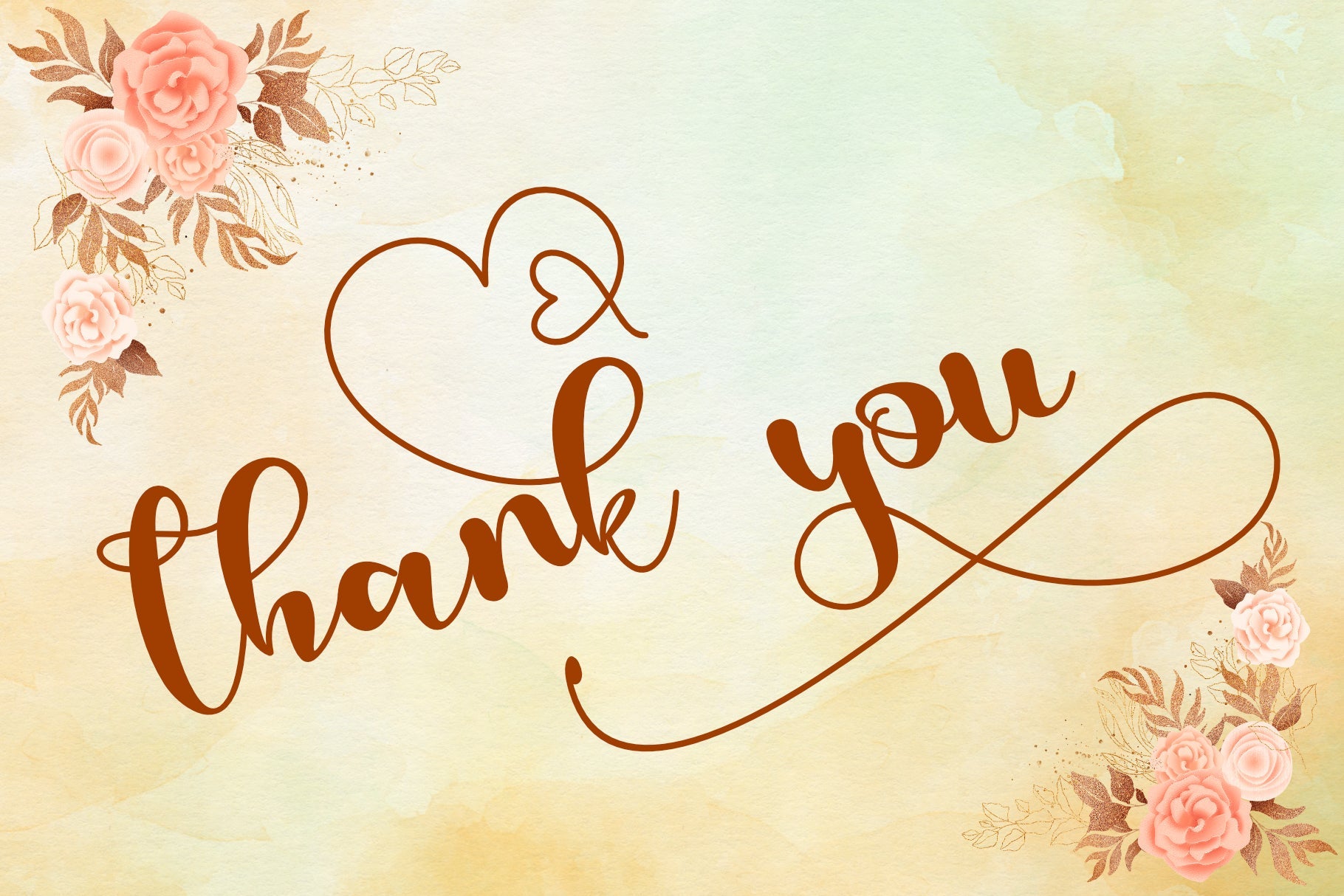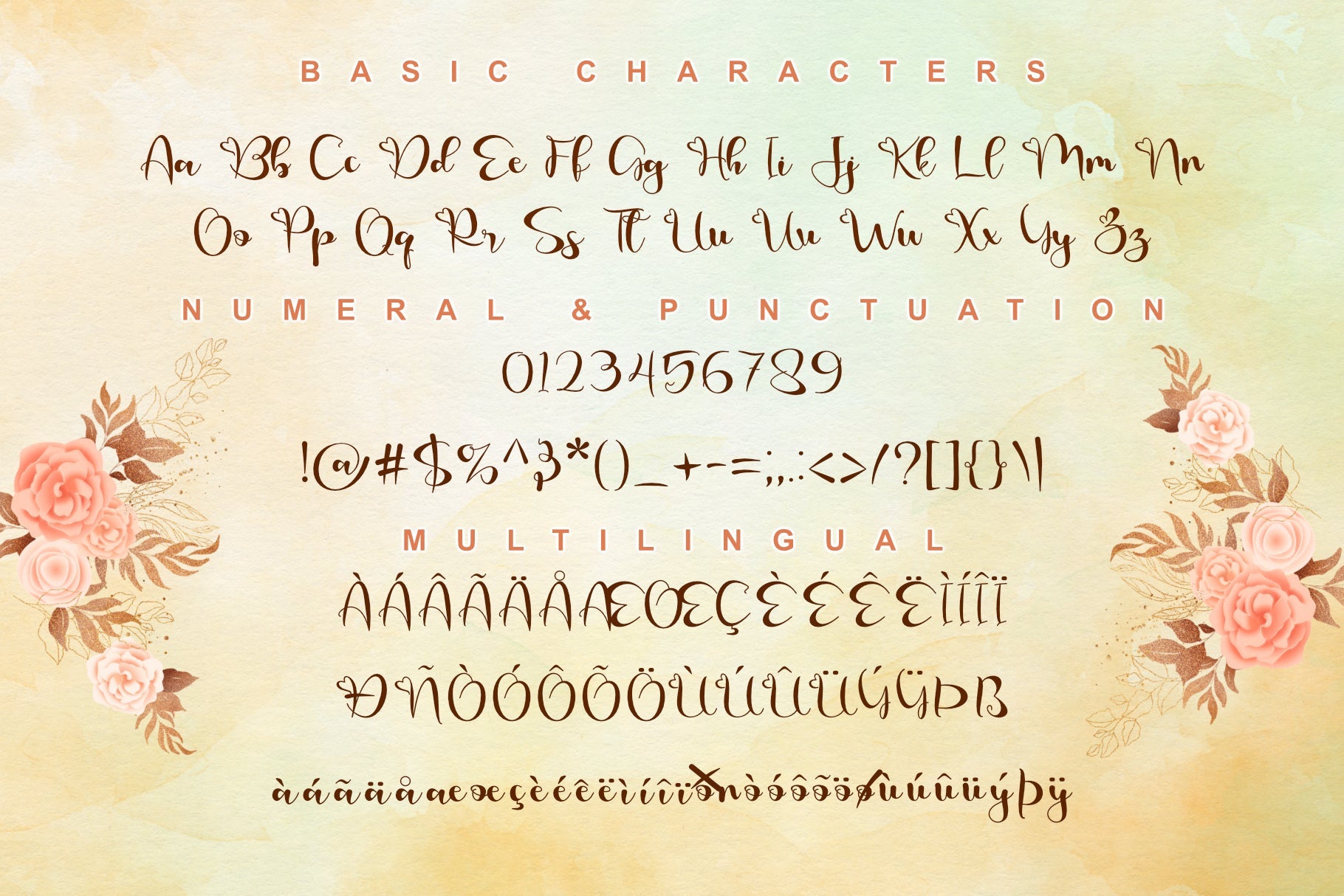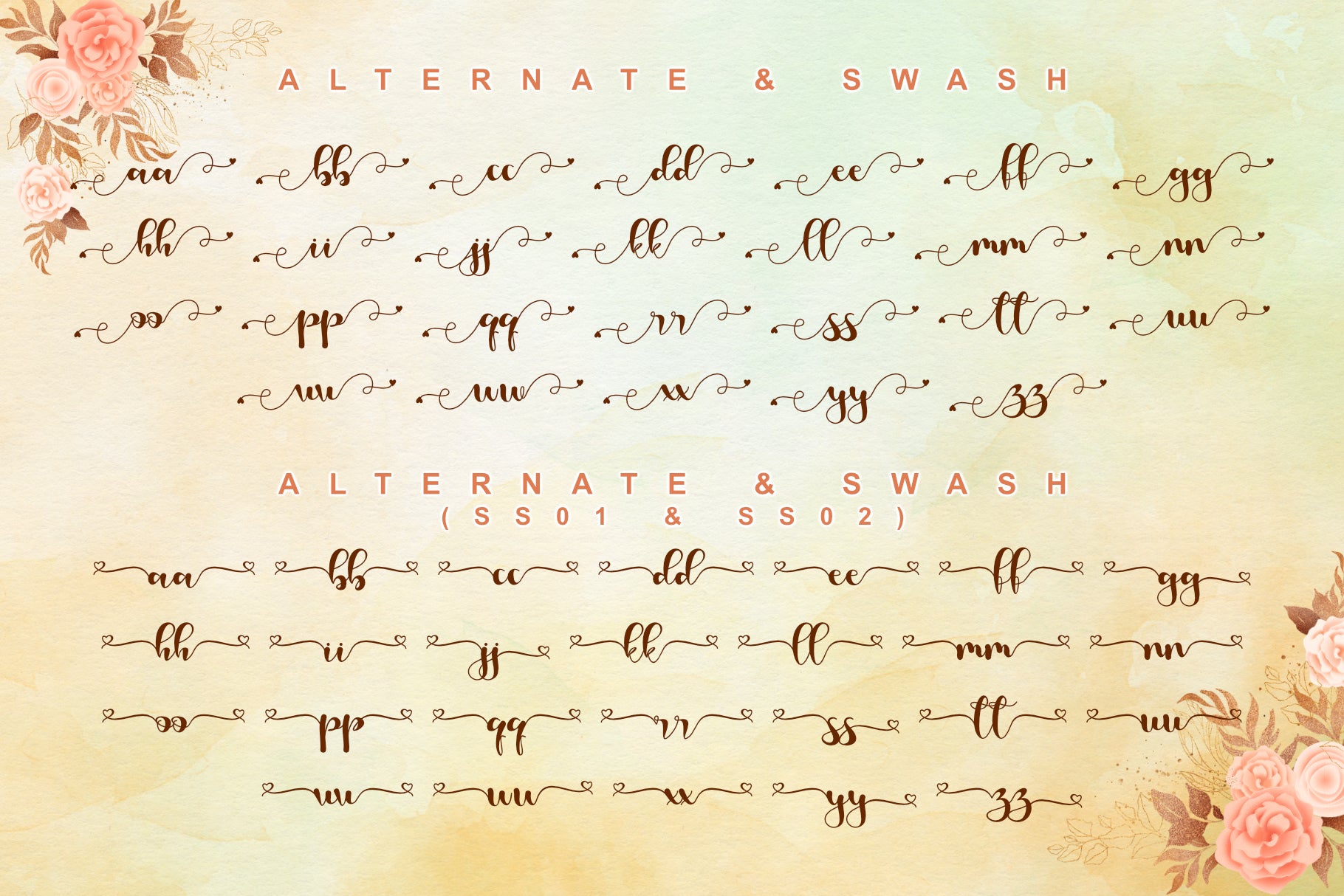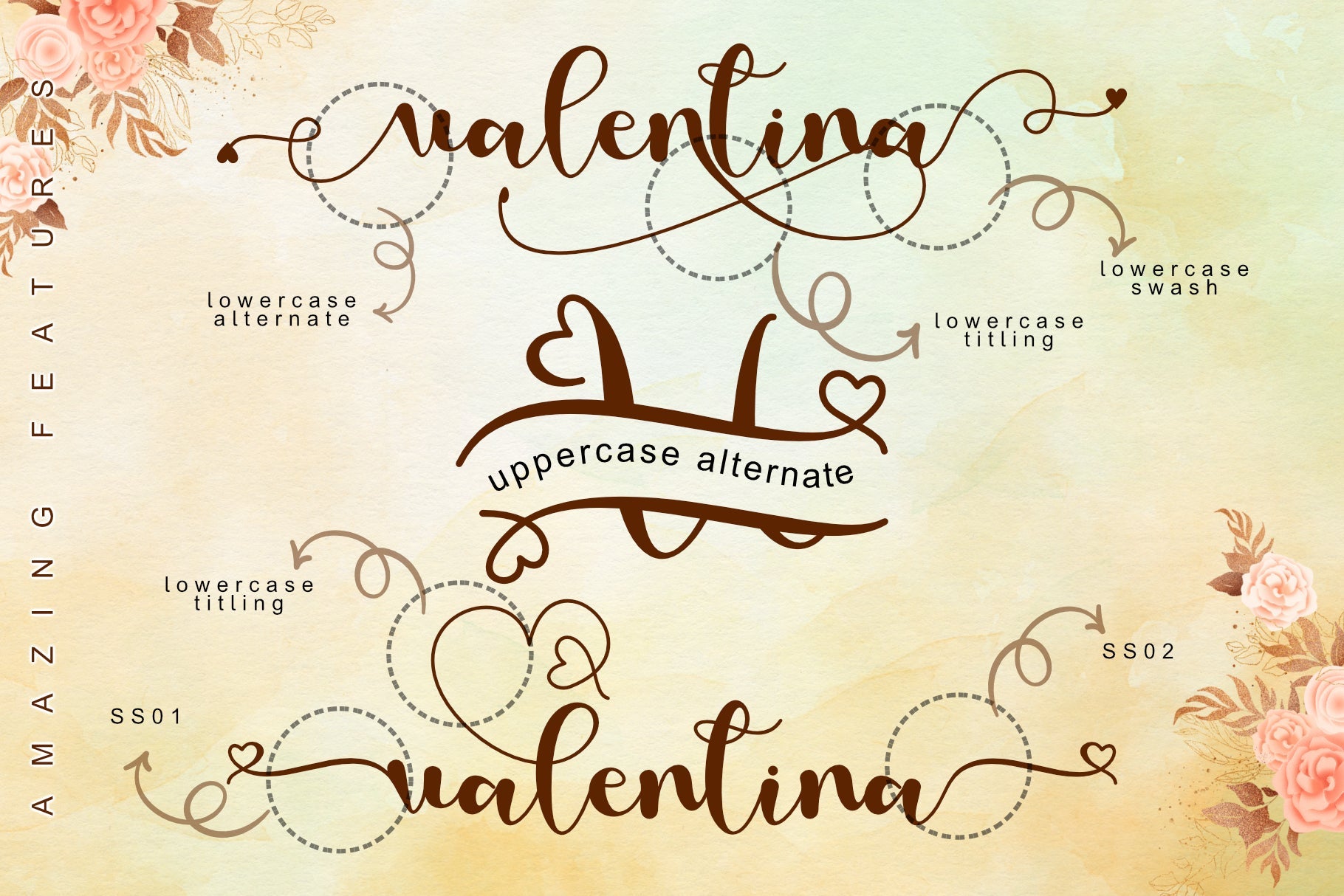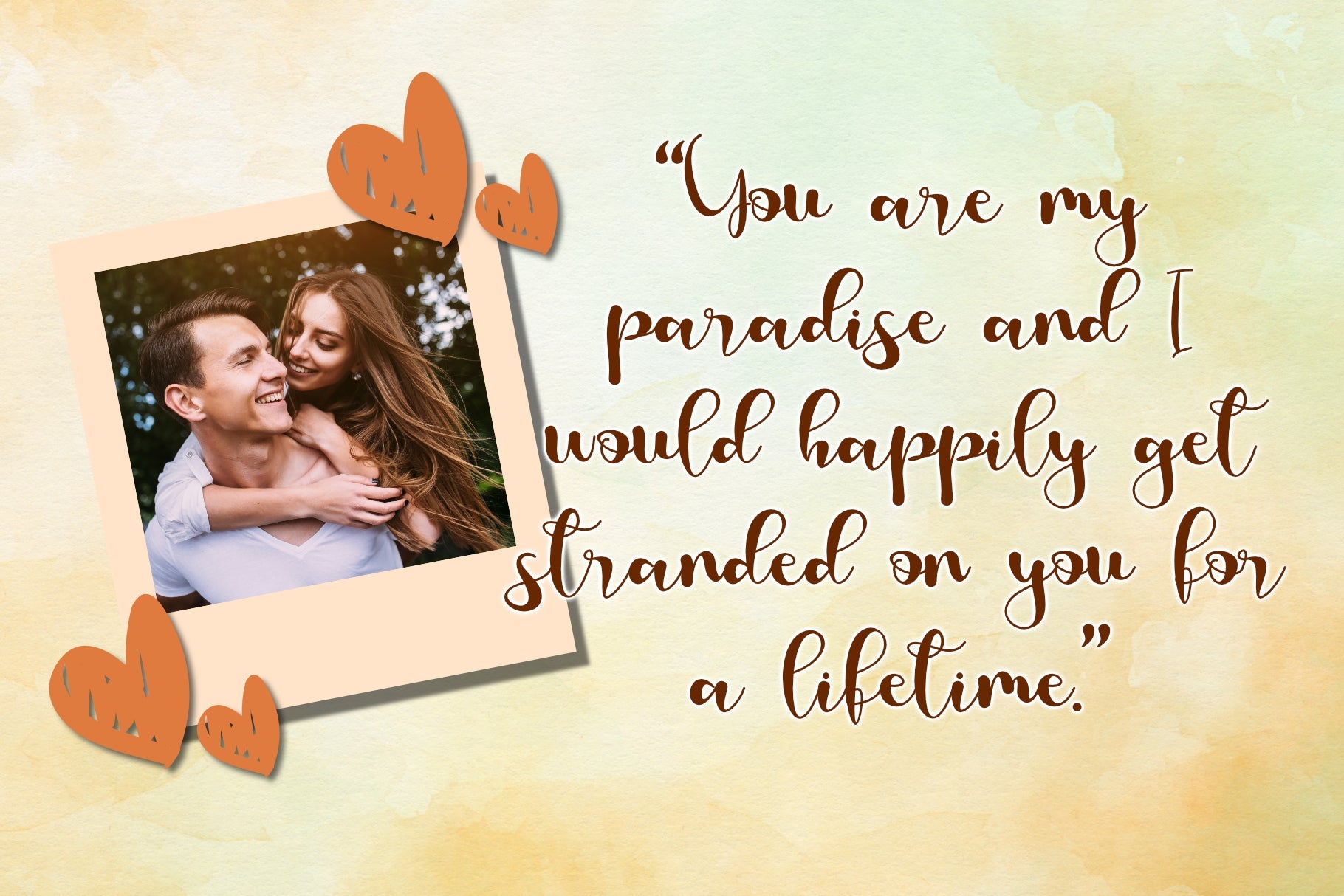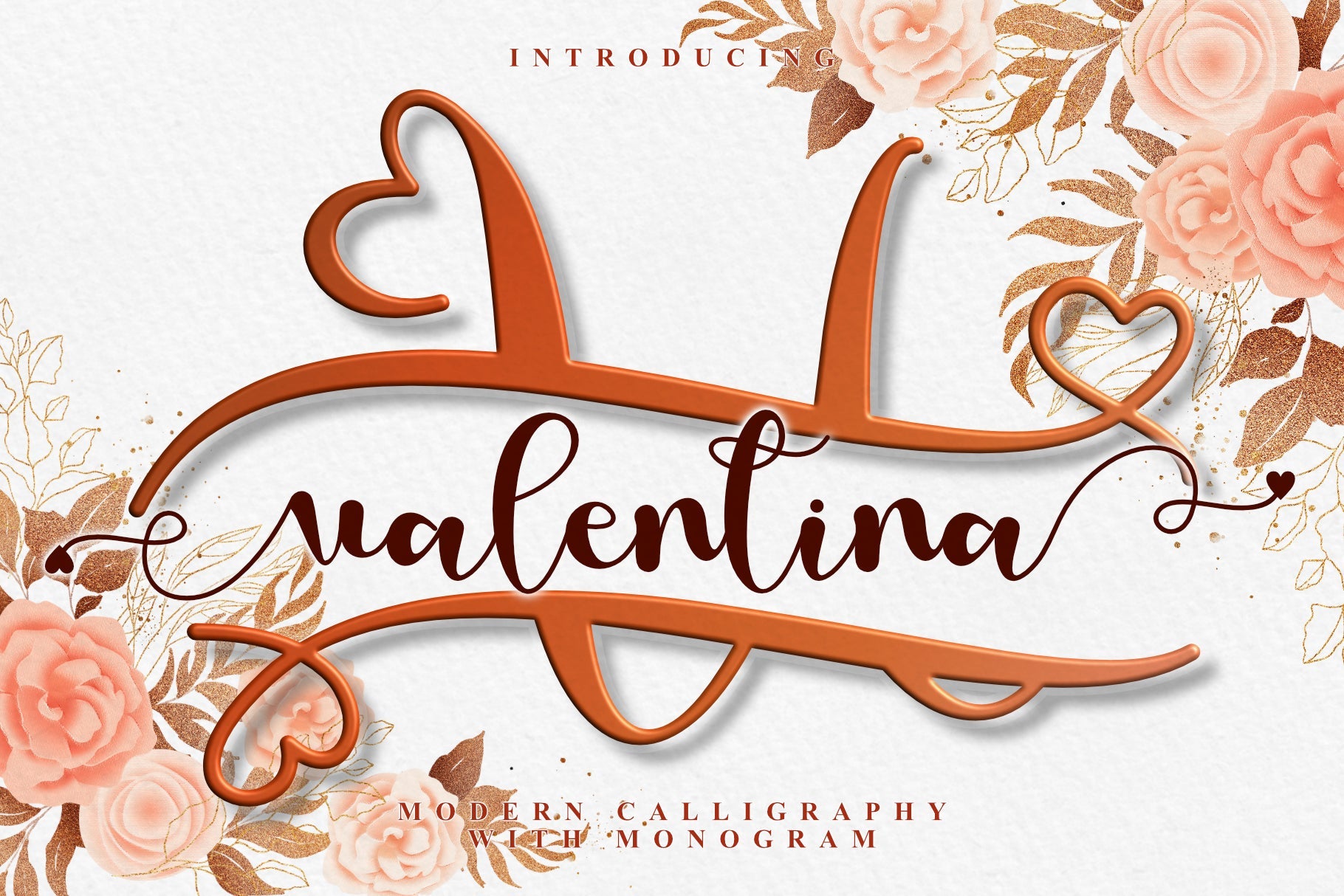
Love Valentina
About Love Valentina
Love Valentina is a romantic and sweet calligraphy typeface with characters that dance along the baseline. It can be used for various purposes such as logos, wedding invitations, headings, t-shirts, letterhead, signage, labels, news, posters, badges and so much more. This font is PUA encoded which means you can access all of the glyphs and swashes with ease!